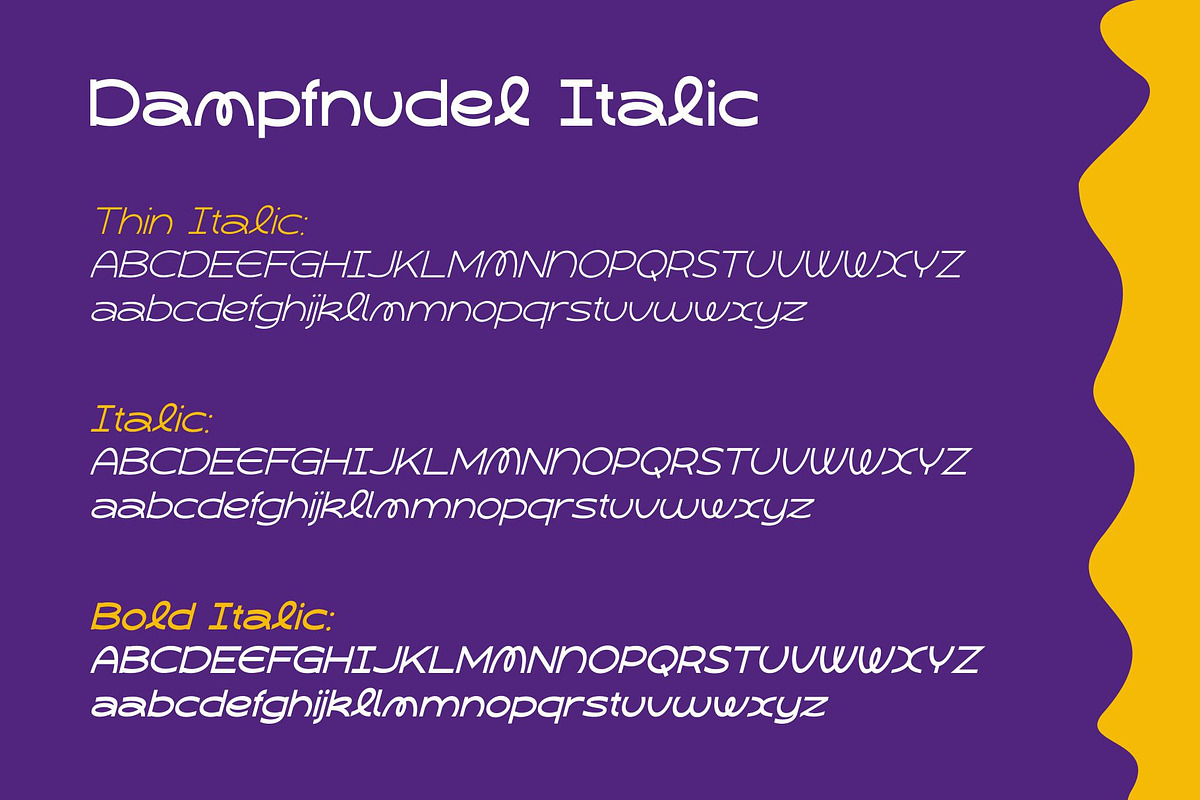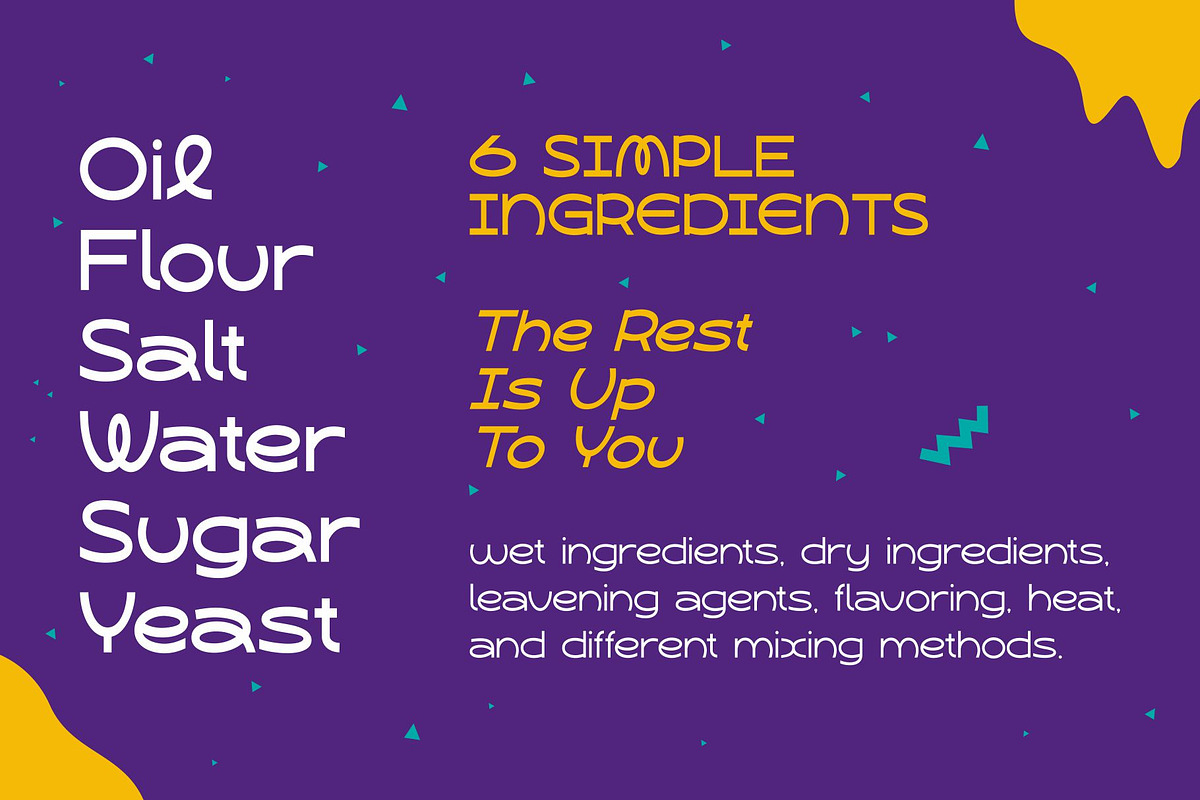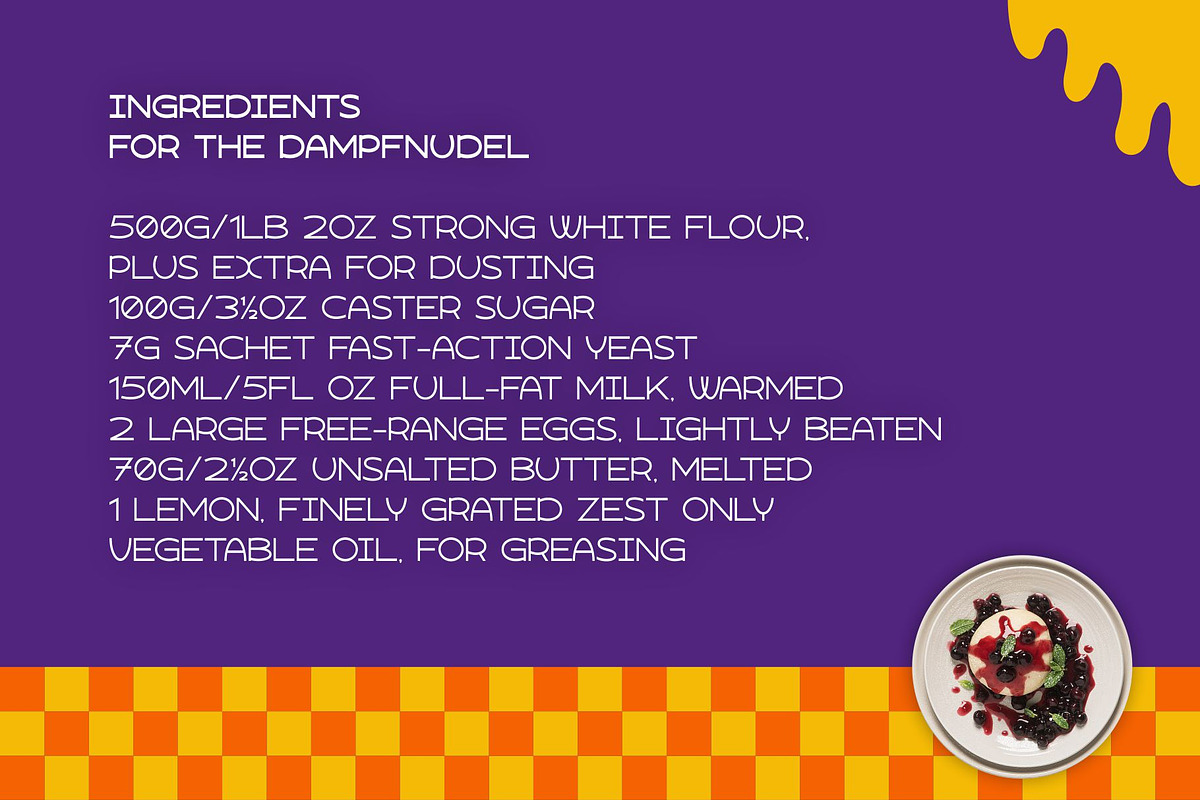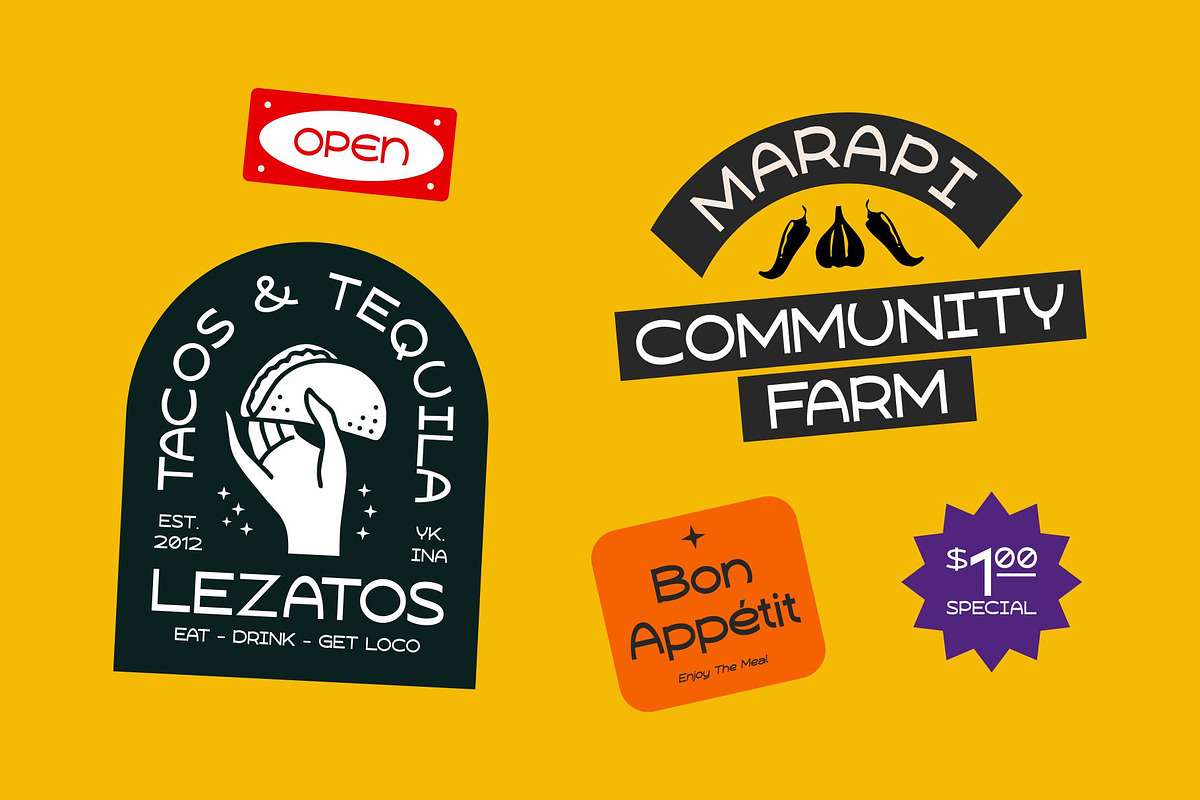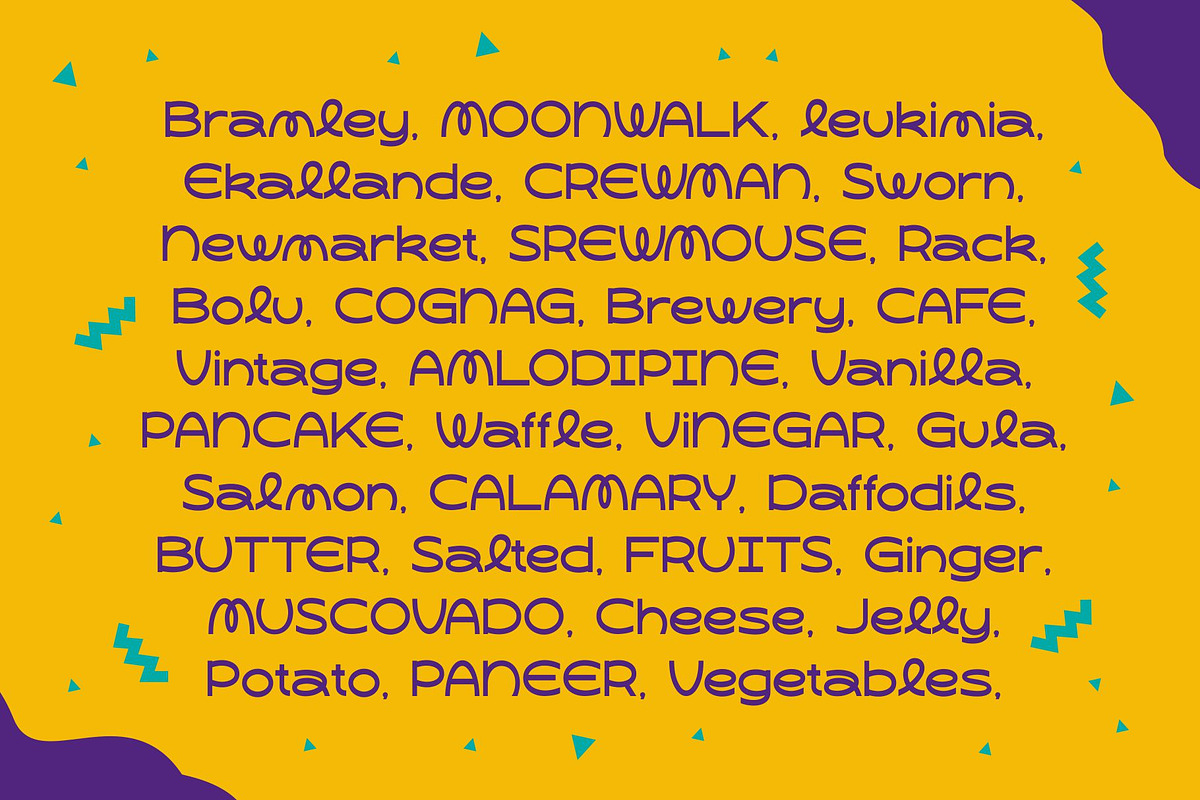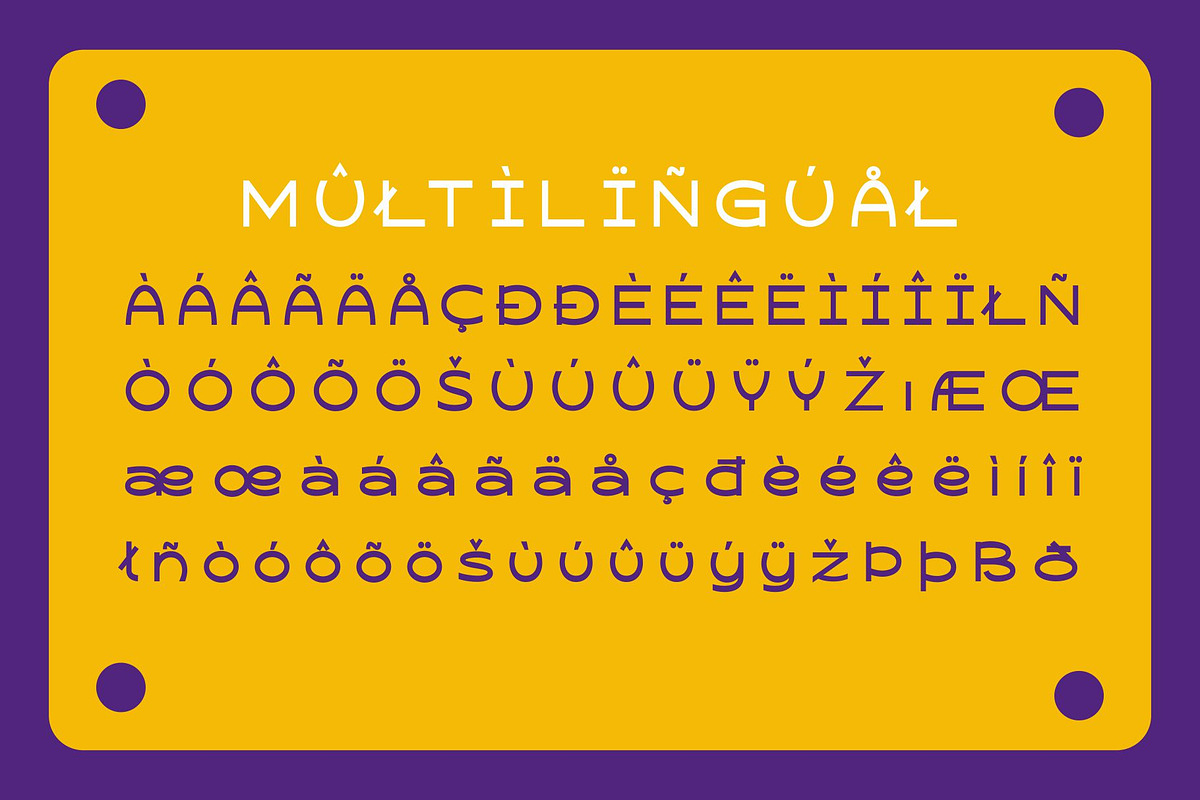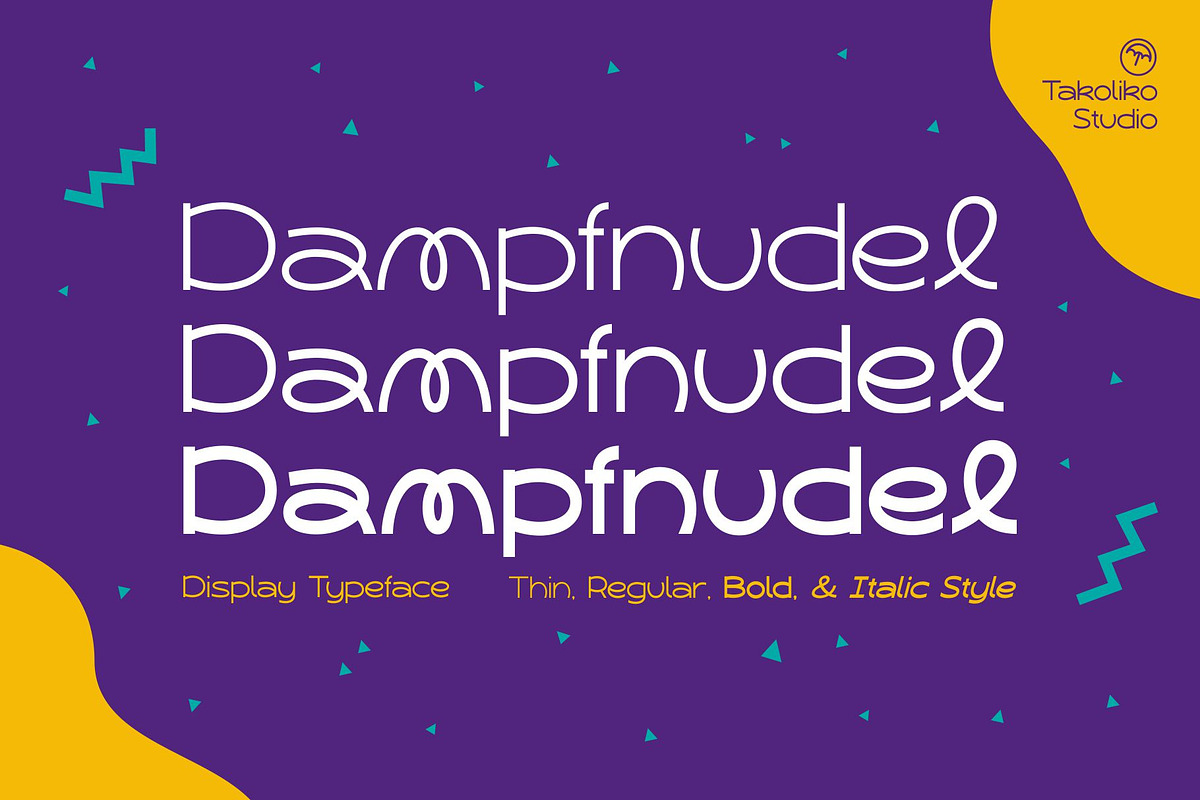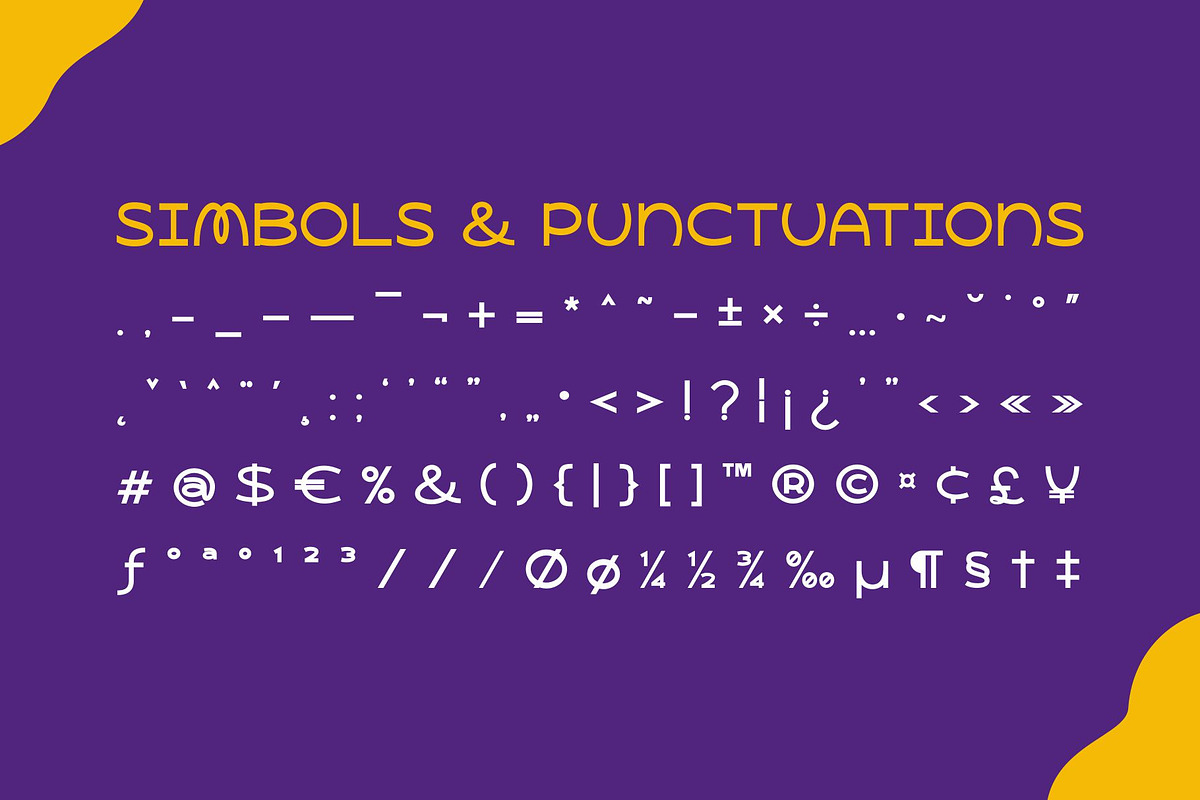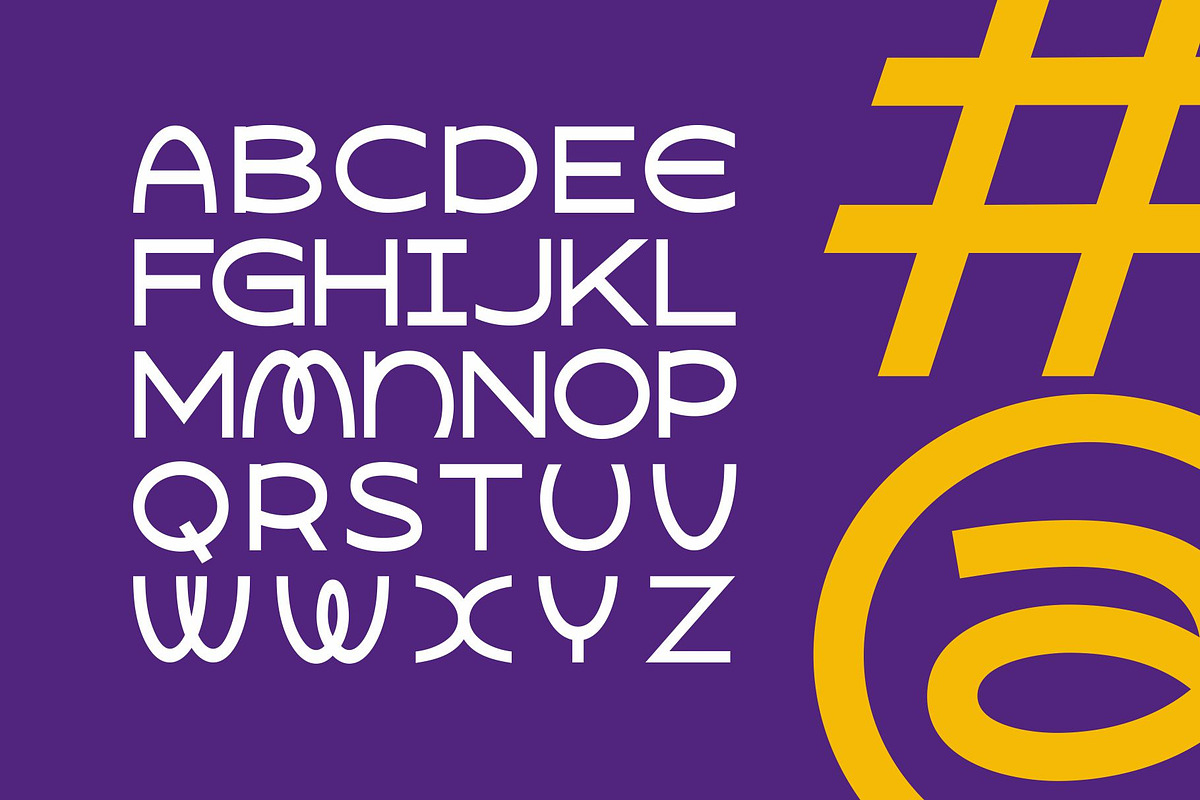
Dampfnudel
Introducing a little bit quirky Dampfnudel, an enchanting sans serif display font that breathes excitement and elegance into your design work. With its whimsical aesthetic, Dampfnudel strikes a perfect balance between structured, formal typeface and the expressiveness of handwriting. Immerse yourself in a font where playful charm and sophisticated subtlety coexist, adding a touch of unbeatable uniqueness to your artistic expressions. Experience Dampfnudel, where detail meets delightful.